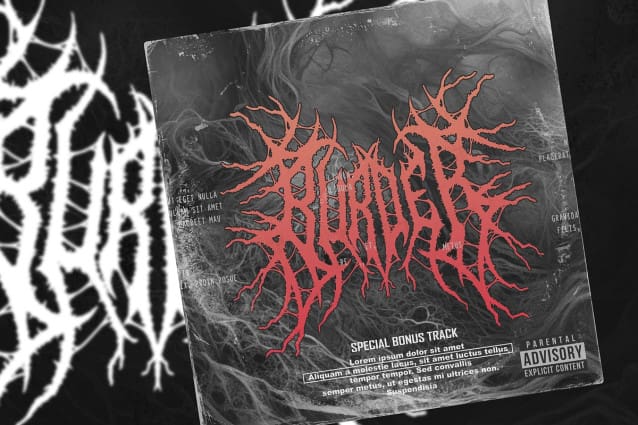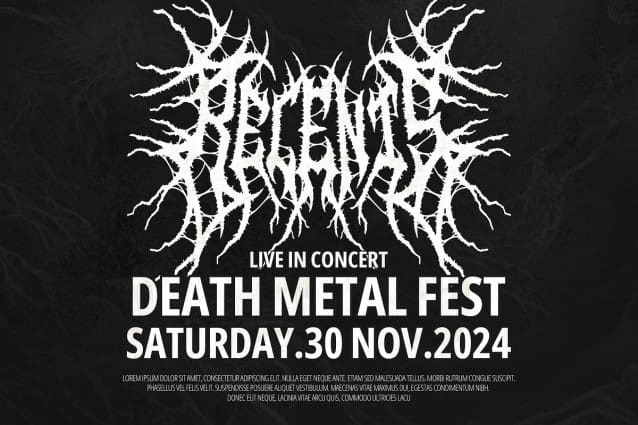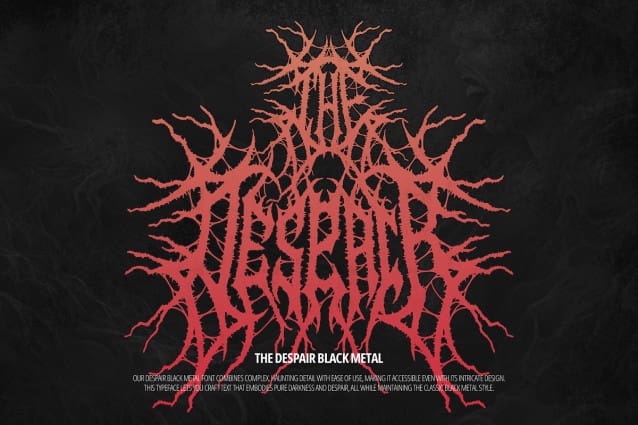
THE DESPAIR TYPEFACE
The Despair Typeface | Black Metal Font, from Denustudios, suitable for any projects such as: logos, branding projects, homeware designs, product packaging, mugs, quotes, posters, shopping bags, t-shirts, book covers, name card, invitation cards, greeting cards, label, photography, watermark, special events, and all your other lovely projects that need a Black Metal Font taste.